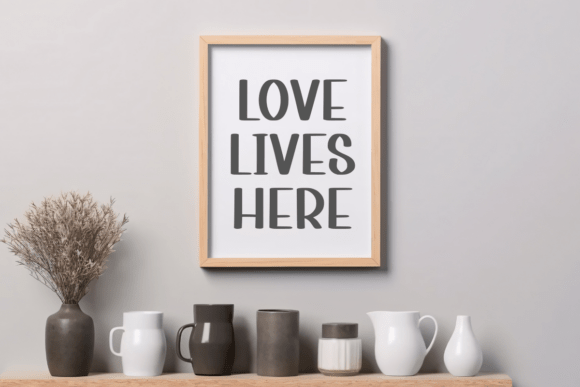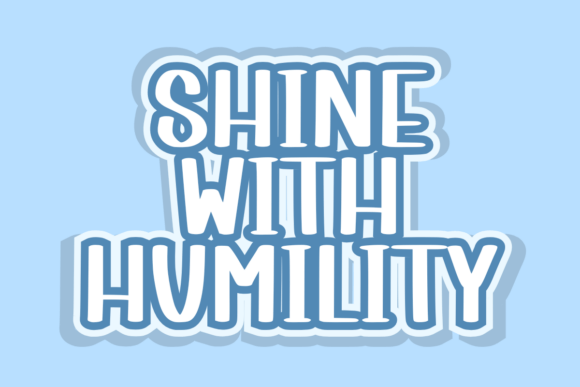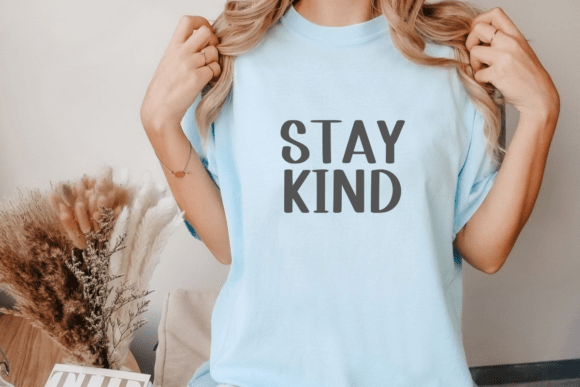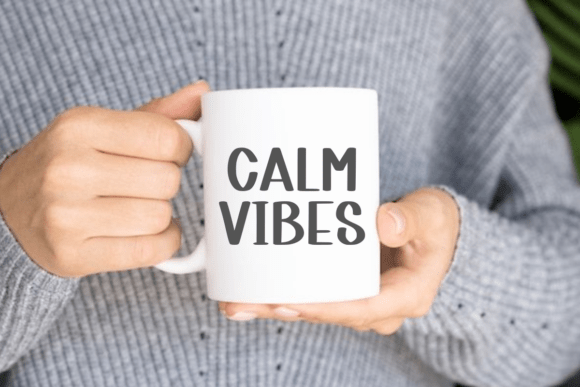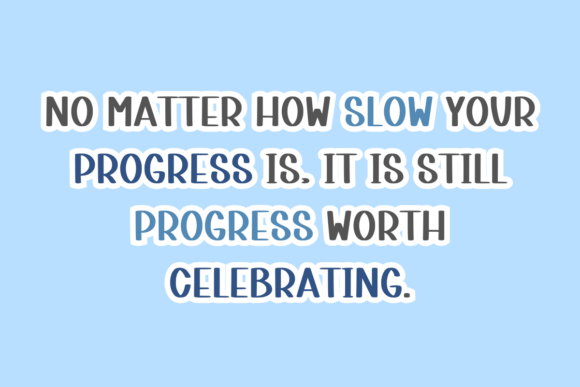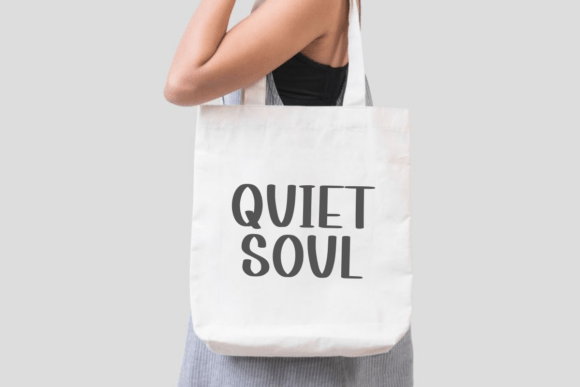
Introducing Glazed Heart Font: The Perfect Handwritten Style for Crafty Projects
Are you a crafter, designer, or DIY enthusiast looking for a font that can add a personal touch to your projects? Look no further than Glazed Heart Font, a cute sans serif handwriting font designed to bring a soft, friendly, and natural look to your creations. In this article, we’ll explore the features and benefits of Glazed Heart Font, and how it can elevate your craft projects, planners, stickers, kids’ worksheets, classroom printables, and DIY designs.
A Warm Handcrafted Feeling
Glazed Heart Font is designed to bring a warm, handcrafted feeling to your projects. Its simple strokes and smooth curves make it easy to read and visually appealing. The font’s soft and friendly look is perfect for crafty projects that require a personal touch, such as handmade cards, gift tags, and scrapbooks. With Glazed Heart Font, you can add a touch of warmth and personality to your designs, making them stand out from the crowd.
Perfect for Crafting Moms and Educators
Glazed Heart Font is a great choice for crafting moms and educators who love adorable handwritten styles. The font is perfect for creating kids’ labels, coloring pages, worksheets, and classroom printables. Its playful and fun design makes it an excellent choice for educational materials, such as bullet journals, planners, and activity sheets. With Glazed Heart Font, you can create engaging and interactive learning materials that kids will love.
Ease of Use with Cricut and Silhouette
One of the best features of Glazed Heart Font is its compatibility with cutting machines like Cricut and Silhouette. The font’s simple strokes and smooth curves make it easy to cut, allowing you to create intricate designs and shapes with ease. This feature makes Glazed Heart Font perfect for crafters who love to work with vinyl, paper, and other materials.
Endless Project Ideas
The versatility of Glazed Heart Font is one of its greatest strengths. You can use it for a wide range of projects, including:
• Quotes and inspirational messages
• Greeting cards and invitations
• Kids’ labels and stickers
• Coloring pages and activity sheets
• Worksheets and educational materials
• Bullet journals and planners
• Scrapbooks and photo albums
• Playful graphic projects and DIY designs
Why Choose Glazed Heart Font?
So why choose Glazed Heart Font over other fonts? Here are just a few reasons:
• Unique and playful design: Glazed Heart Font has a unique and playful design that will add a personal touch to your projects.
• Ease of use: The font is easy to read and use, making it perfect for crafters and designers of all levels.
• Compatibility with cutting machines: Glazed Heart Font is compatible with cutting machines like Cricut and Silhouette, making it easy to create intricate designs and shapes.
• Versatility: The font can be used for a wide range of projects, from educational materials to DIY designs.
Glazed Heart Font is a versatile and playful font that is perfect for crafters, designers, and DIY enthusiasts. Its soft, friendly, and natural look makes it ideal for a wide range of projects, from kids’ worksheets to DIY designs. With its ease of use, compatibility with cutting machines, and endless project ideas, Glazed Heart Font is a must-have for anyone looking to add a personal touch to their creations.